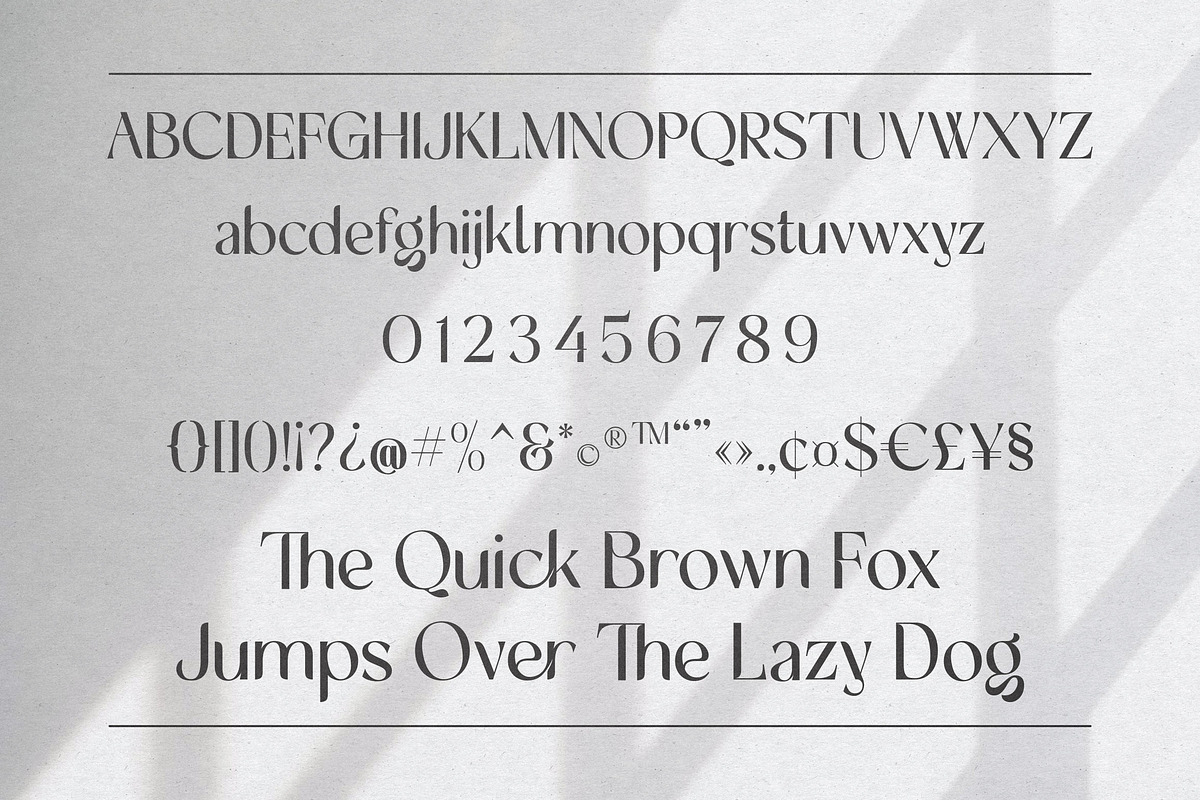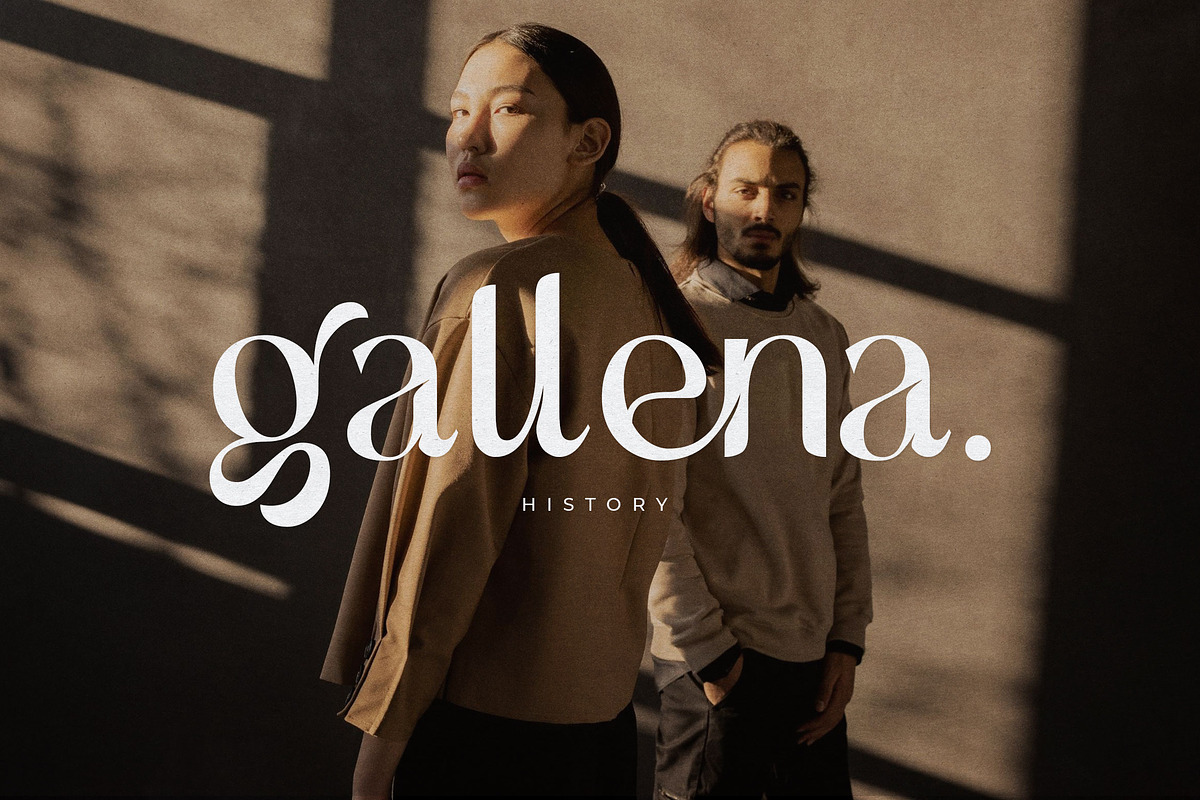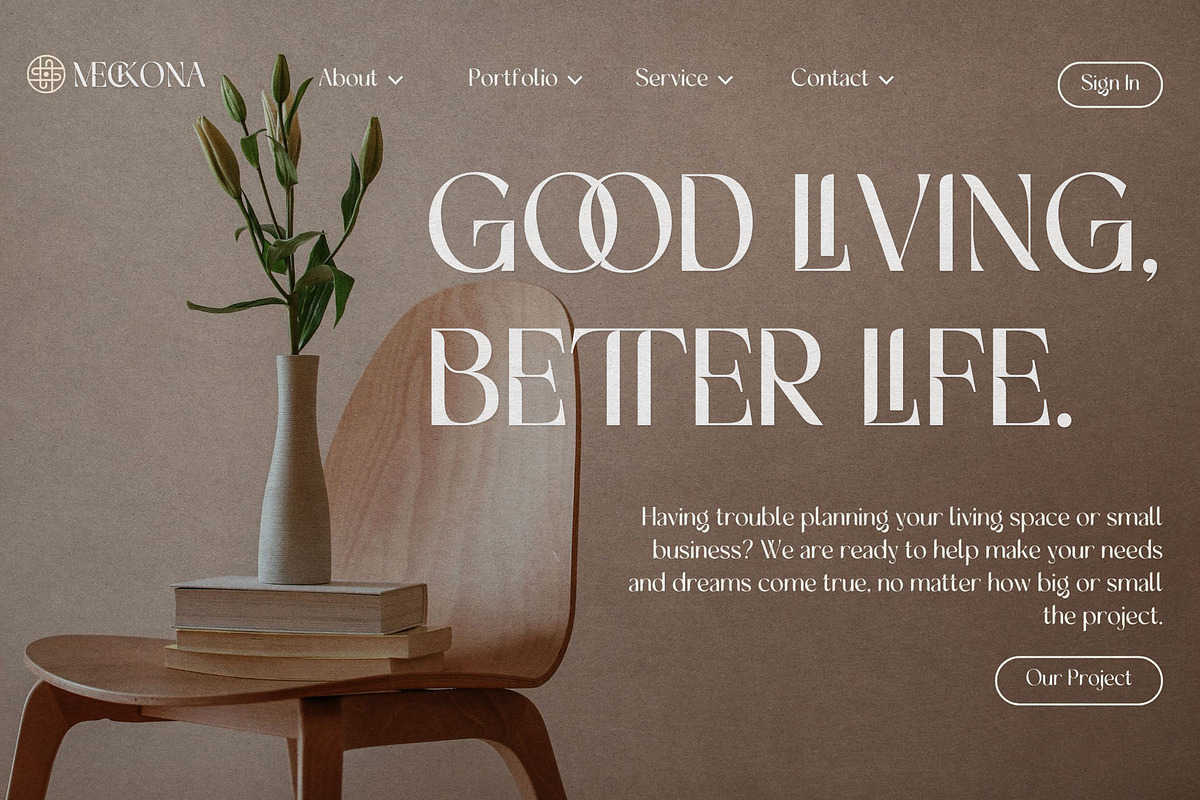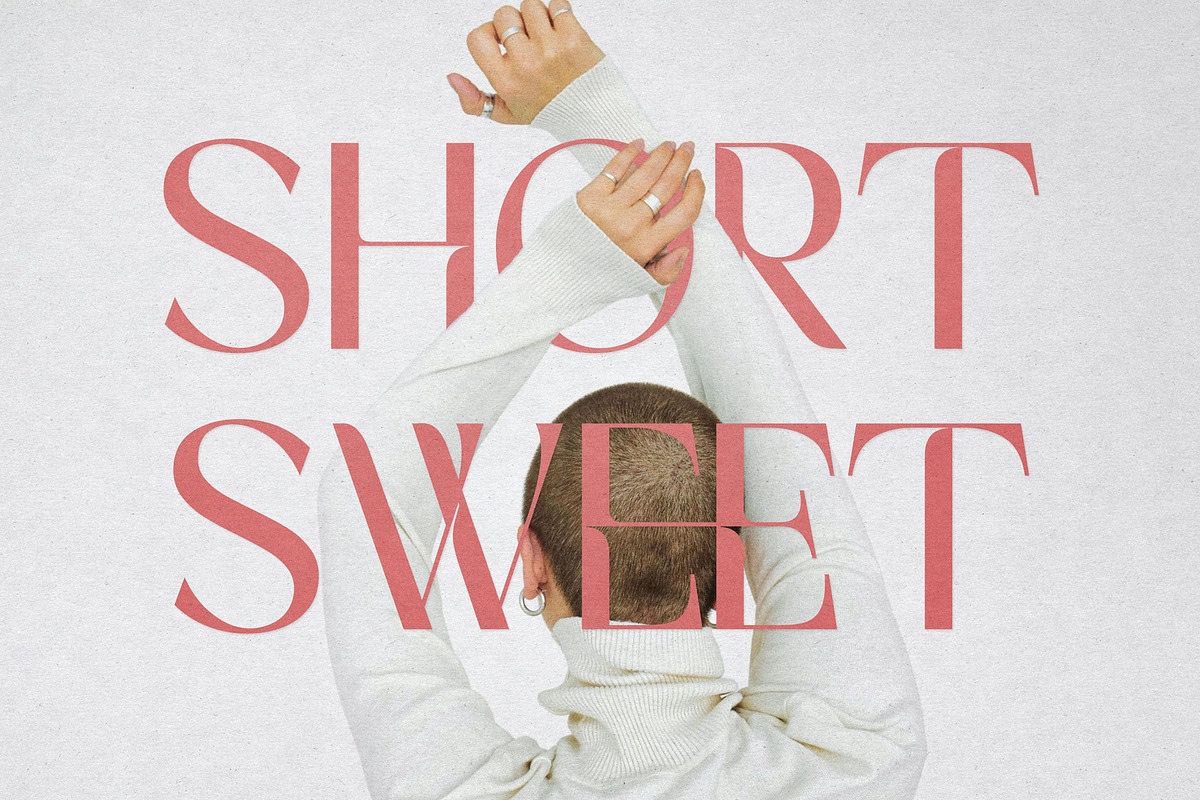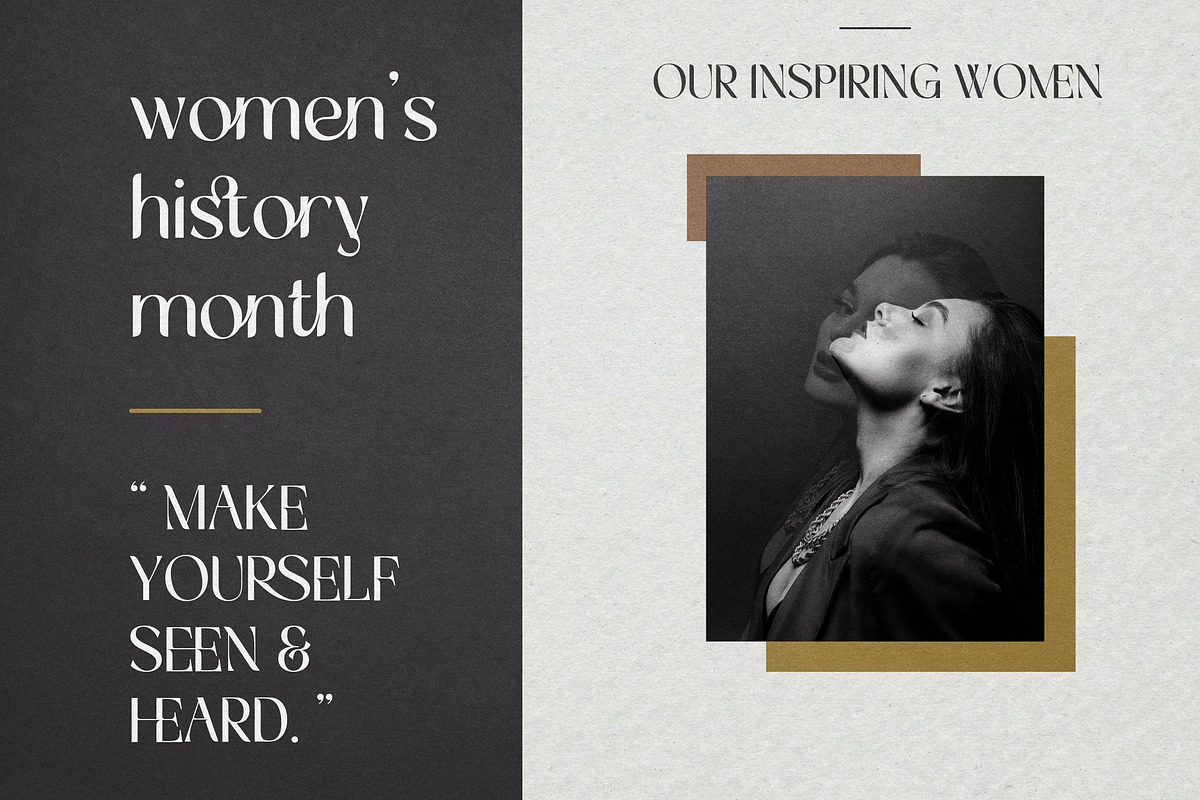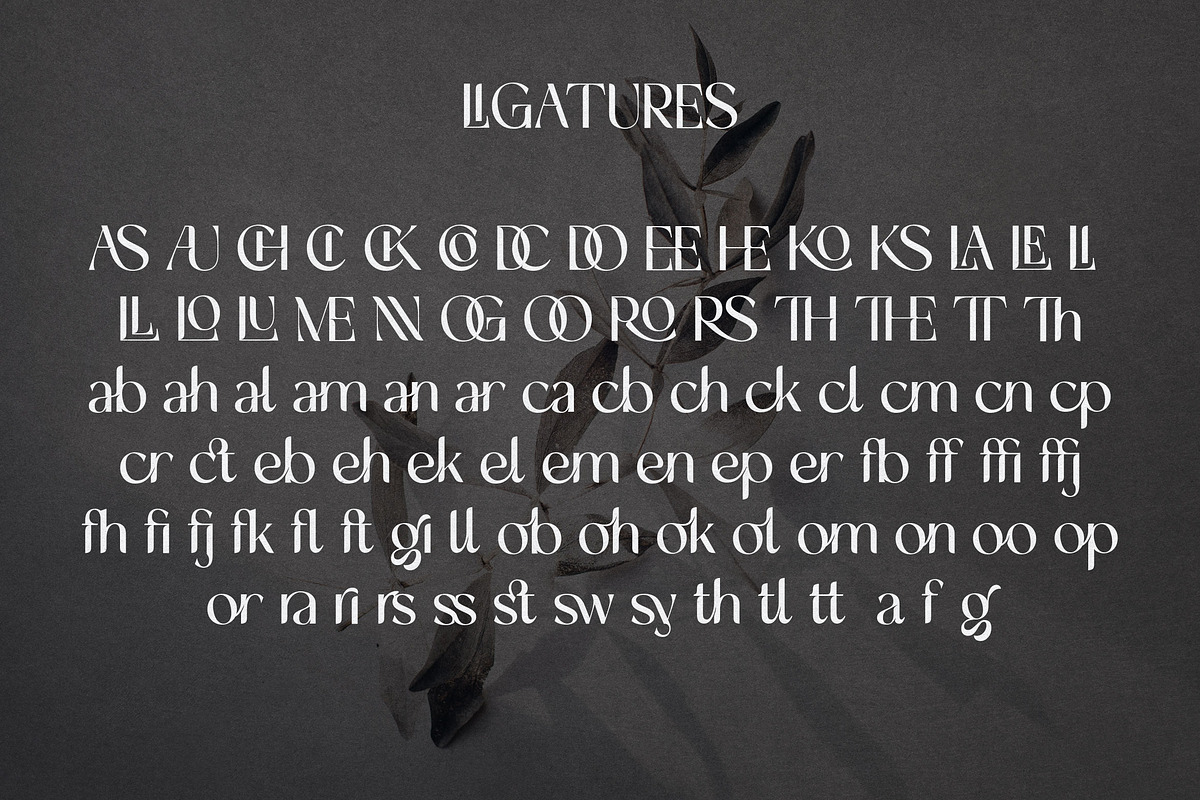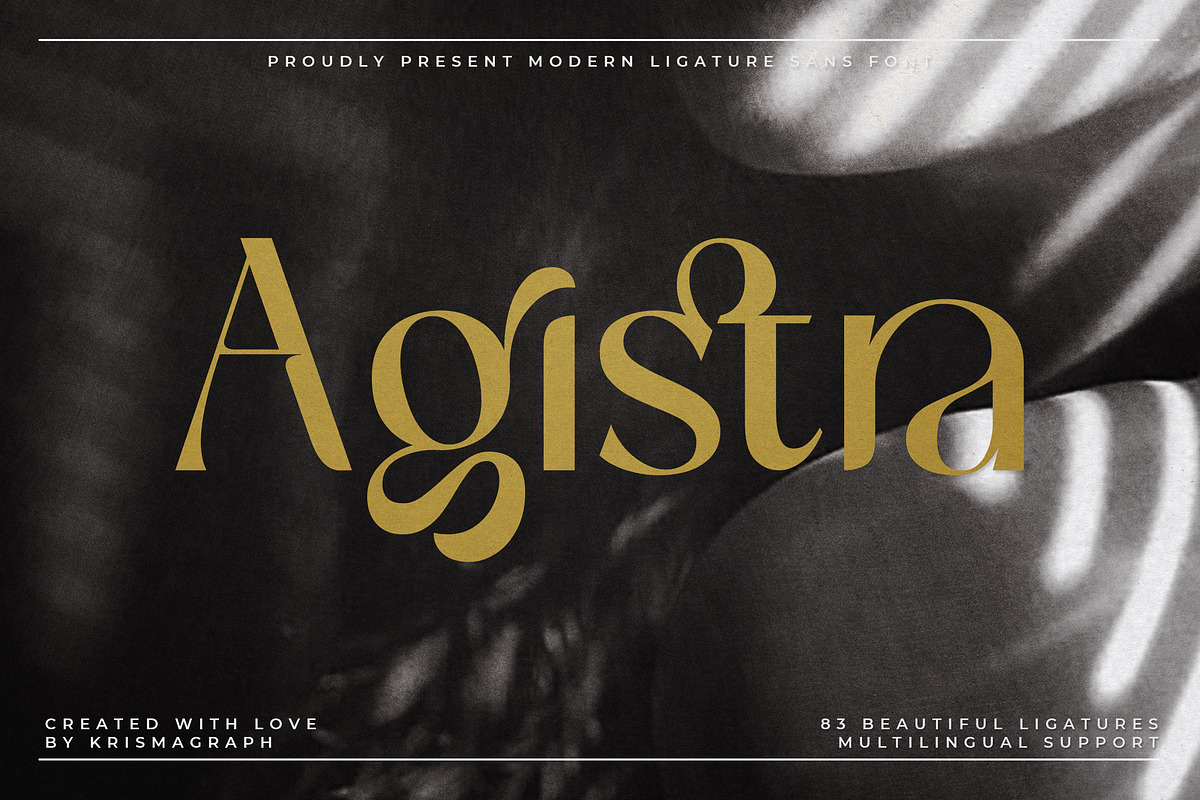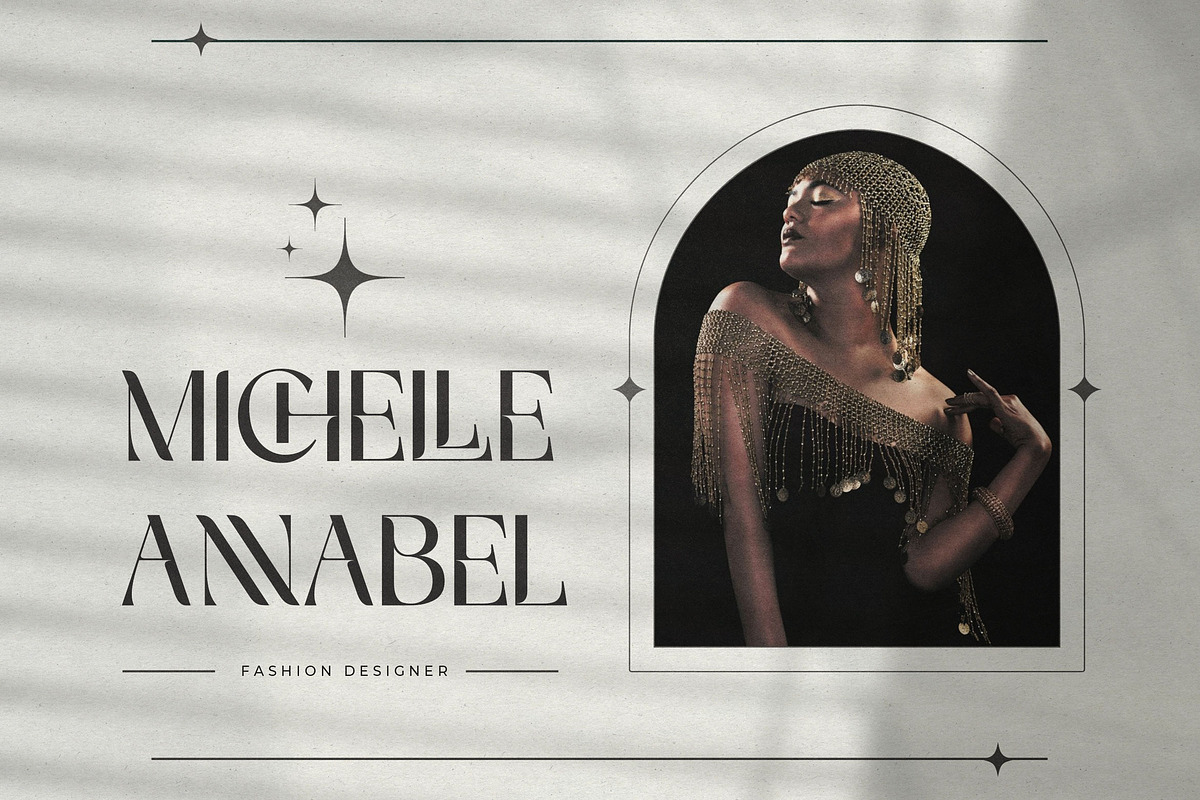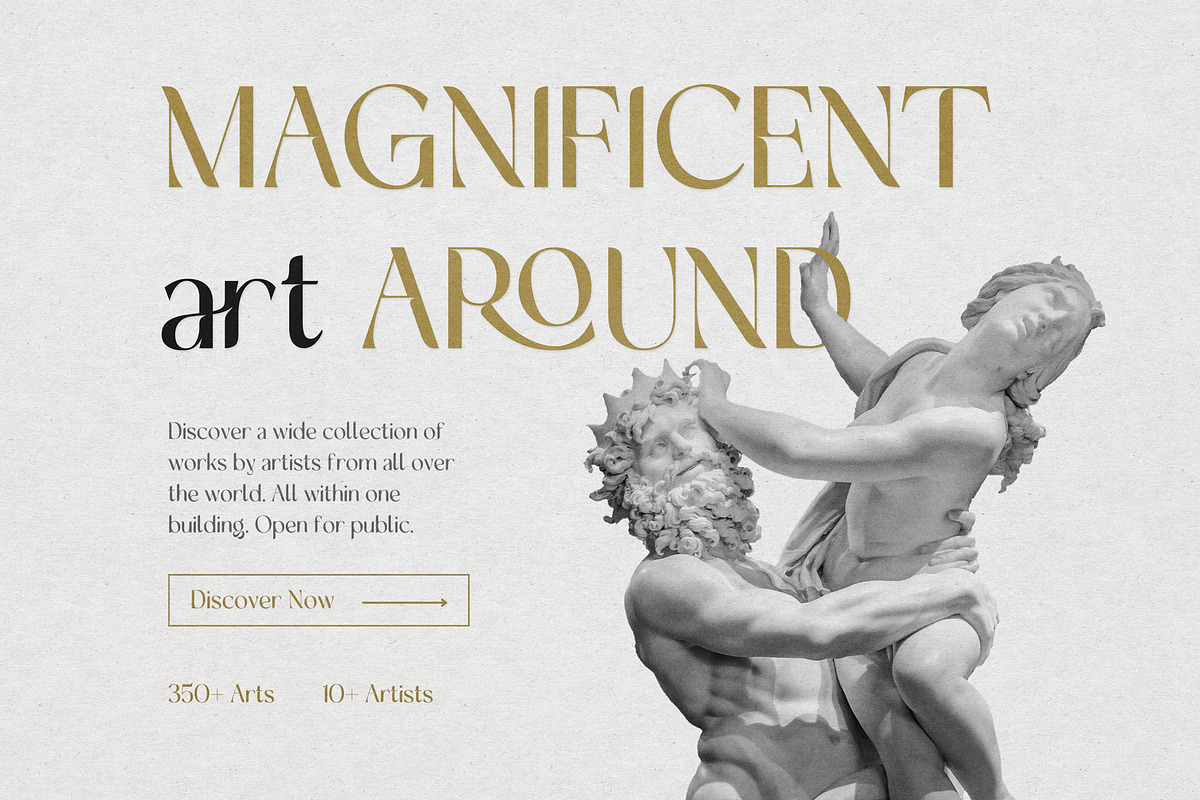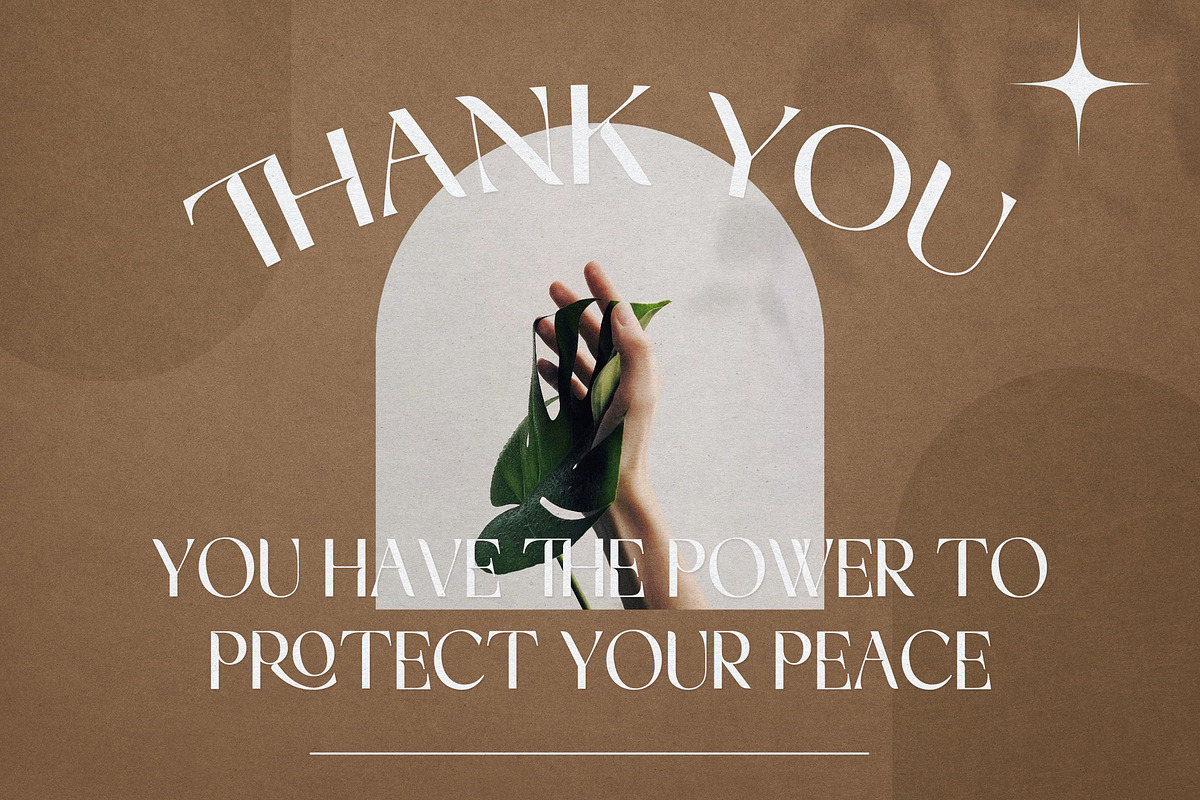
Agistra | Modern Ligature Sans
Agistra is an elegant and modern Ligature san serif font . Comes with 83 unique ligatures . Agistra font is a multipurpose font that is perfect for any project, with high contrast glyphs, giving it a feminine and masculine quality, modern, and easy to read. Great in layout design for quotes or body copy, best used as a display for headings, logos, branding, magazines, product packaging, invitations, and others. This font is easy to use and has OpenType features.
- Full alphabet with Uppercase and Lowercase
- Numbers, fractions
- Punctuation and symbols